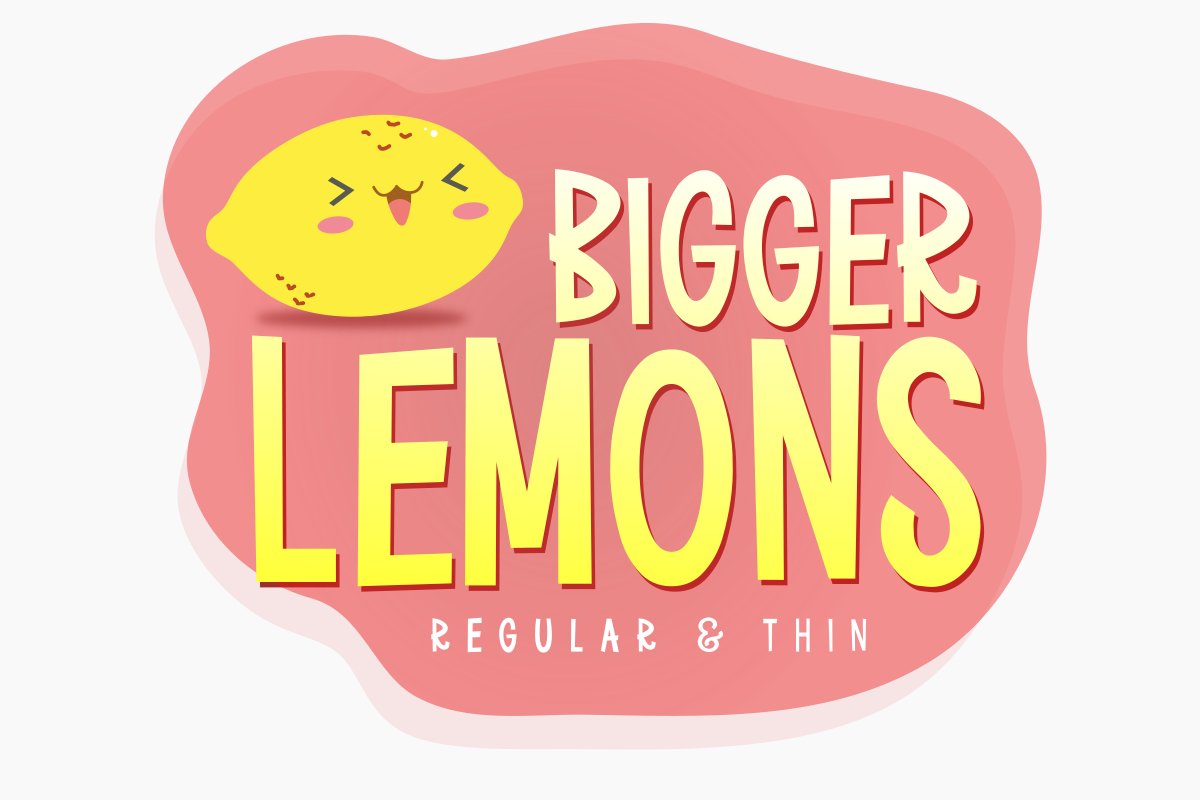
Bigger Lemons
Bigger Lemons Thin
Bigger Lemons
Introducing BIGGER LEMONS - all caps display font
2 Font Styles : Thin and Regular.
The Uppercase are slightly taller than the lower case so you can mix them in words to get natural and dinamic looks.
Great for social medias, youtube thumbnais, quotes, tshirts, book covers, cartoon designs, comics, and many more!
Multilingual Support.